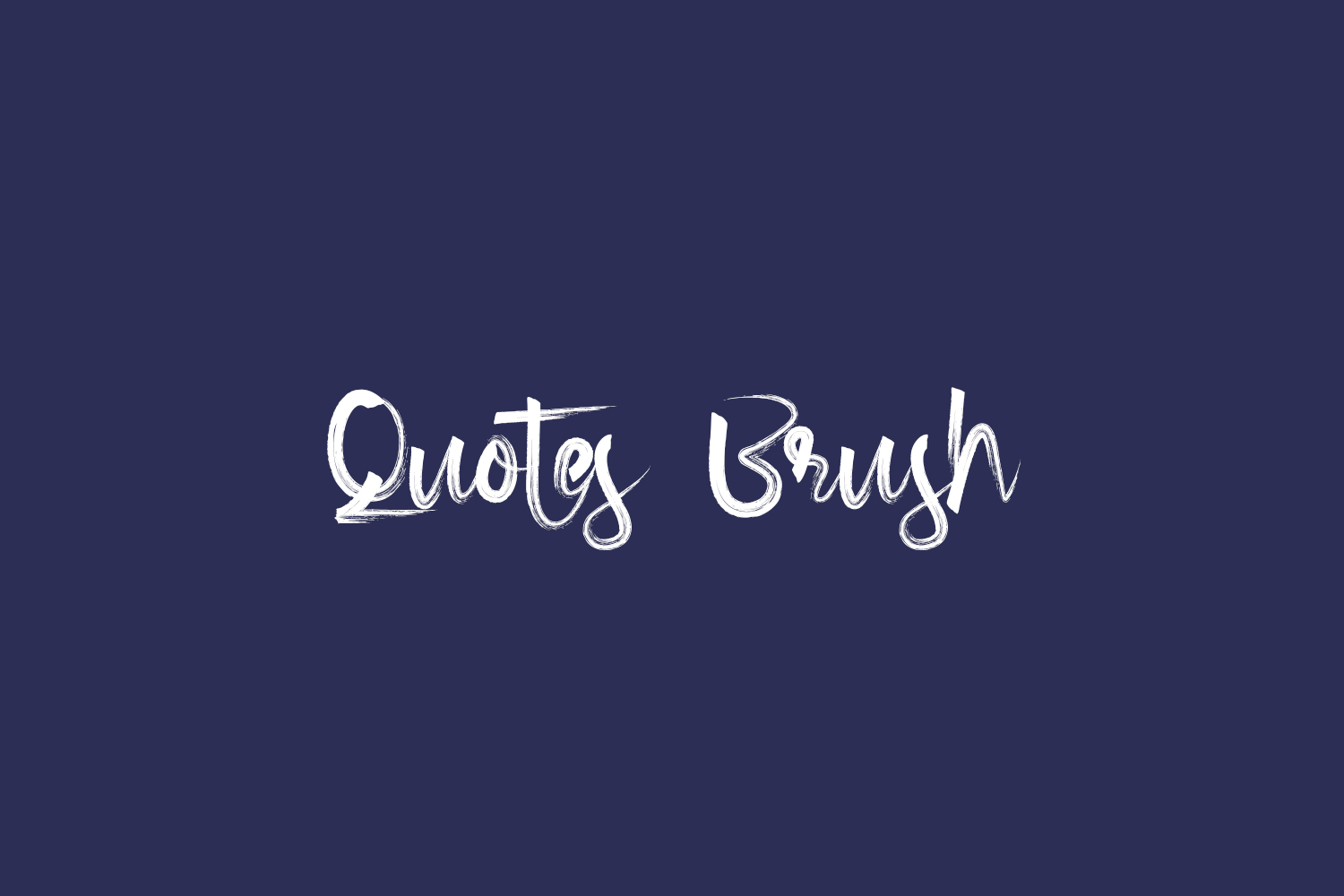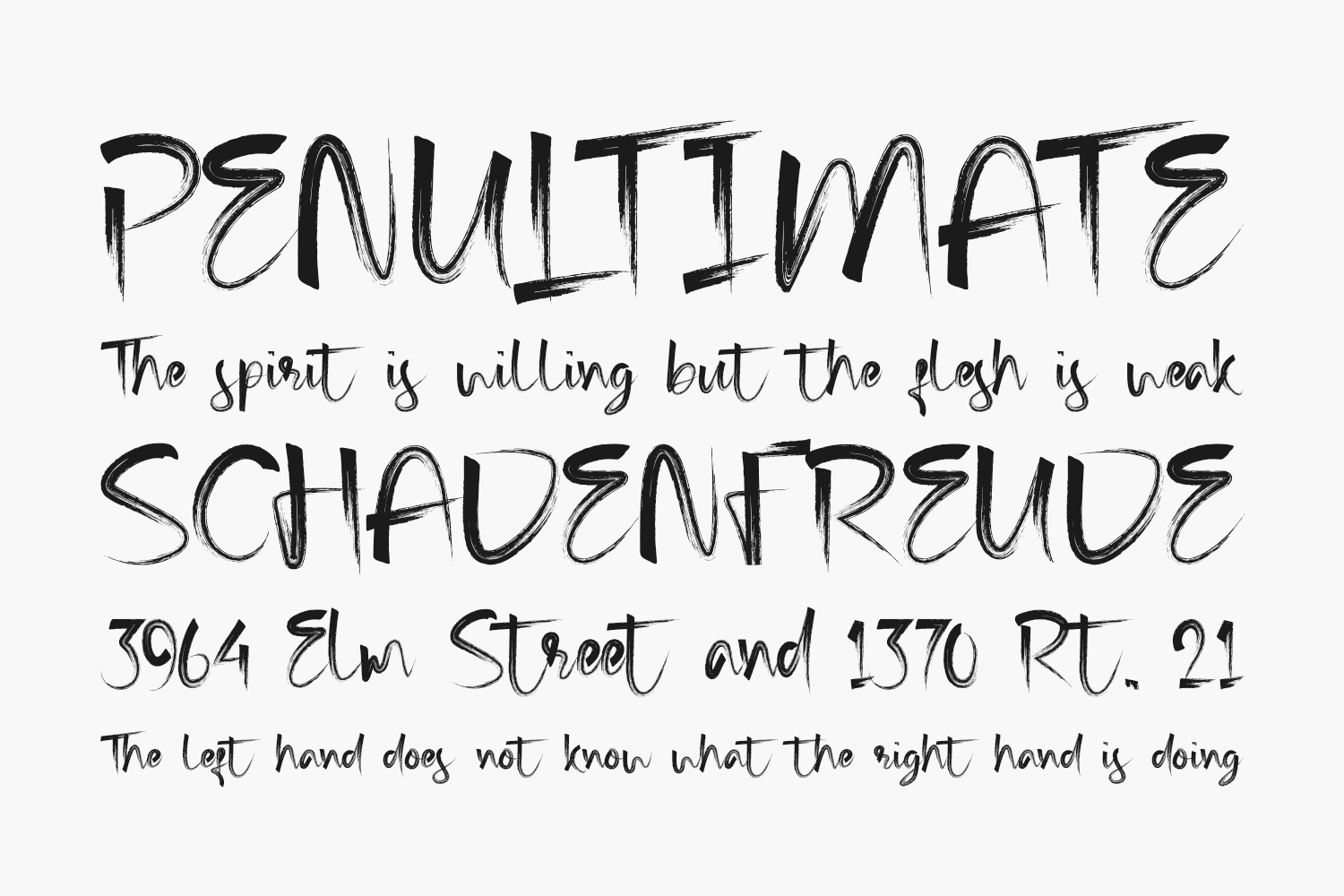
Quotes Brush Free Font is a texture brush font. This is a unique hand-made brush font created using realistic brush strokes including inconsistent textures & letter-forms to give you the same look & feel as a real brush would. Please purchase the full version for commercial use.
Designed by Kenz